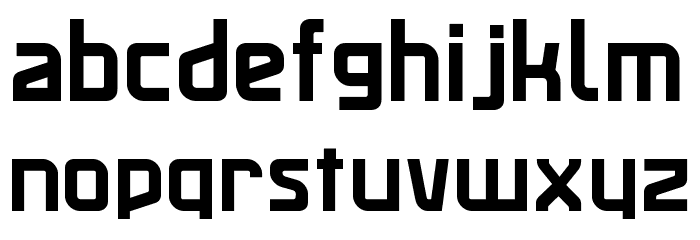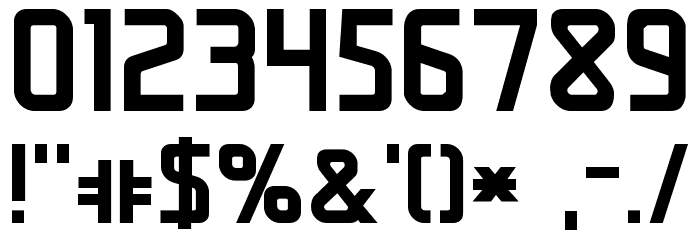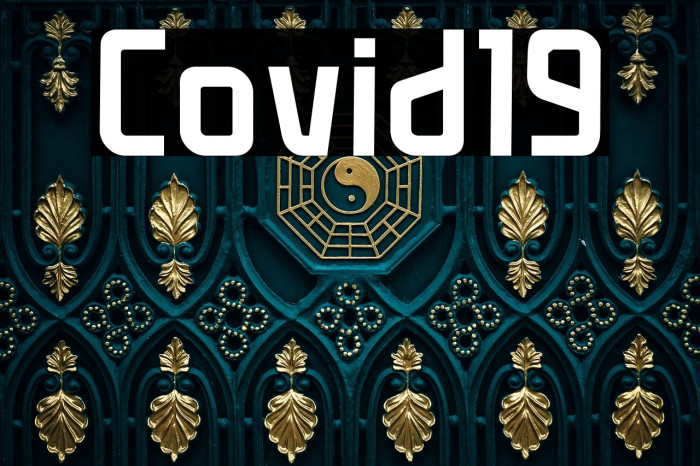
Covid19 Font
This font features a bold and geometric design, characterized by its blocky and angular letterforms. The uppercase and lowercase letters maintain a consistent width, creating a uniform appearance. The numerals are equally bold, with a modern and futuristic aesthetic. Special characters are designed to complement the overall style, with sharp edges and a clean finish. The font's structure is straightforward, making it highly legible and suitable for various design applications.
- Proposed Projects: Ideal for technology branding, futuristic posters, video game interfaces, and modern advertising campaigns.